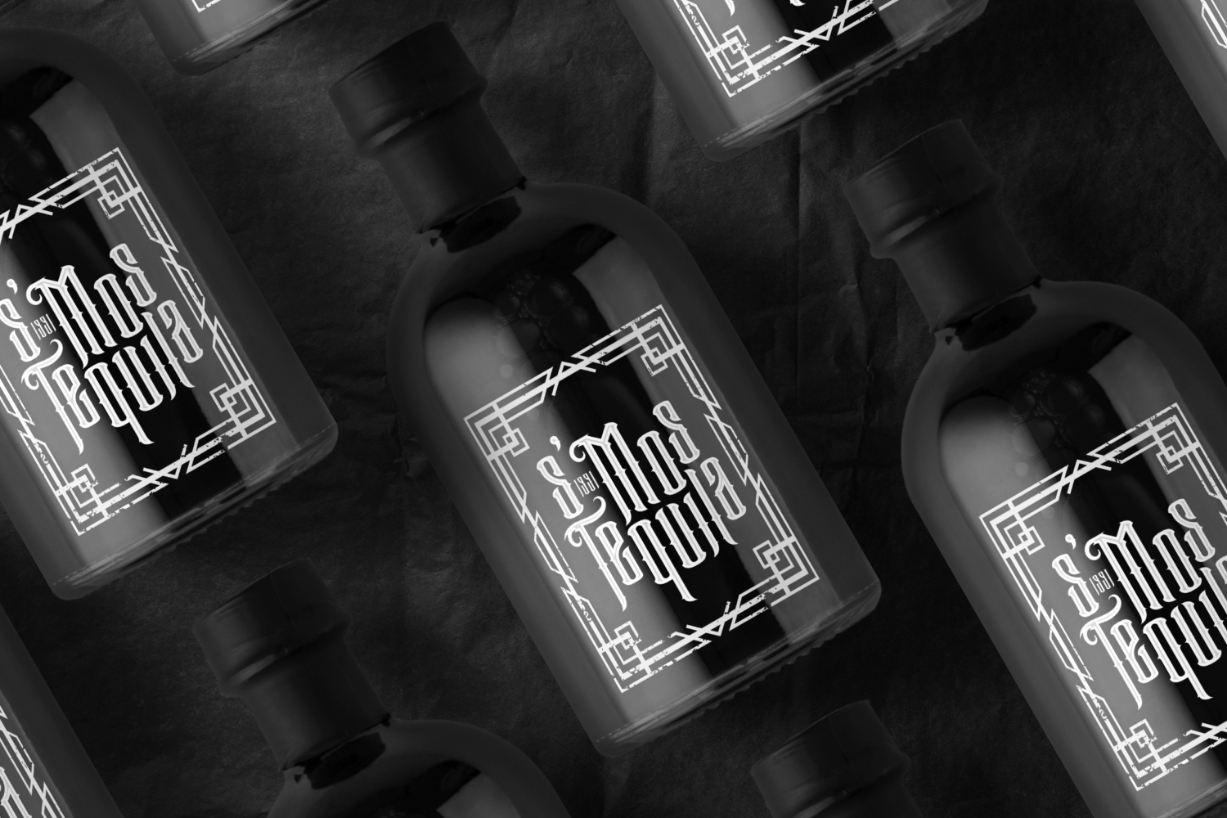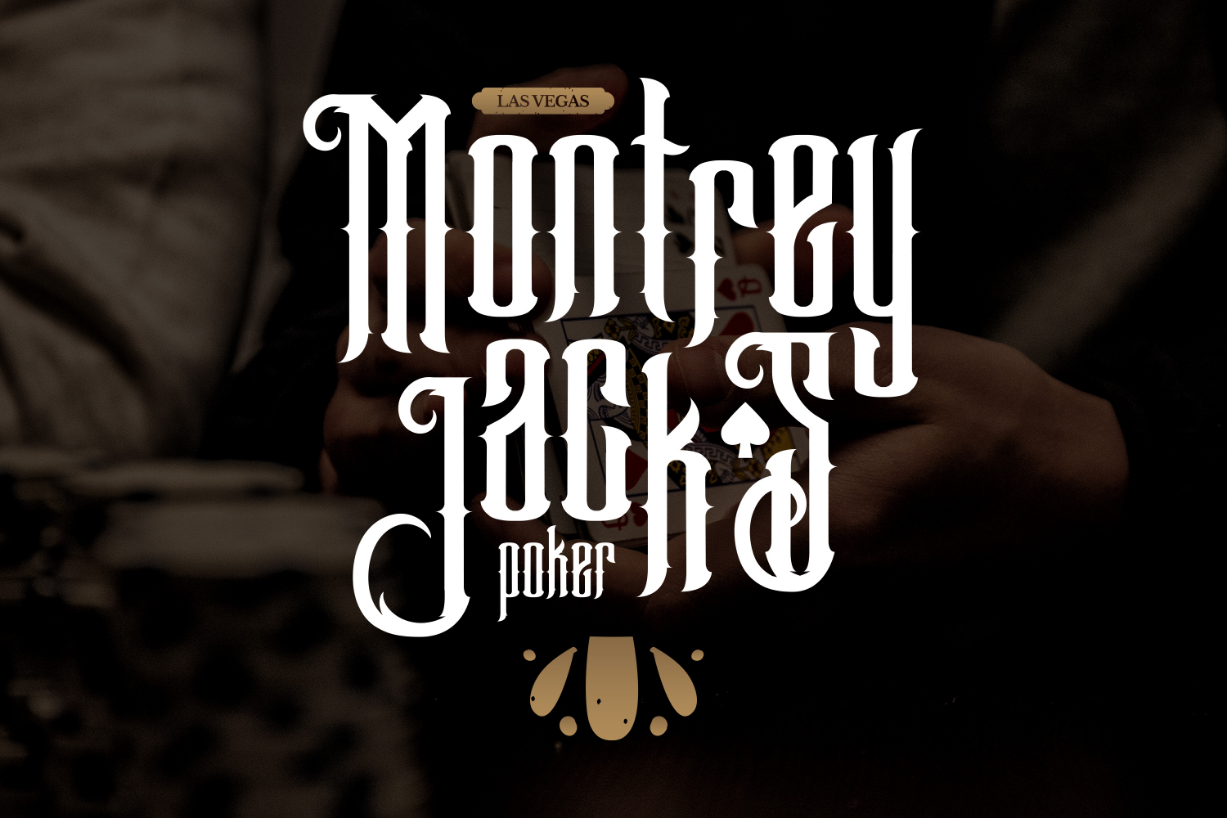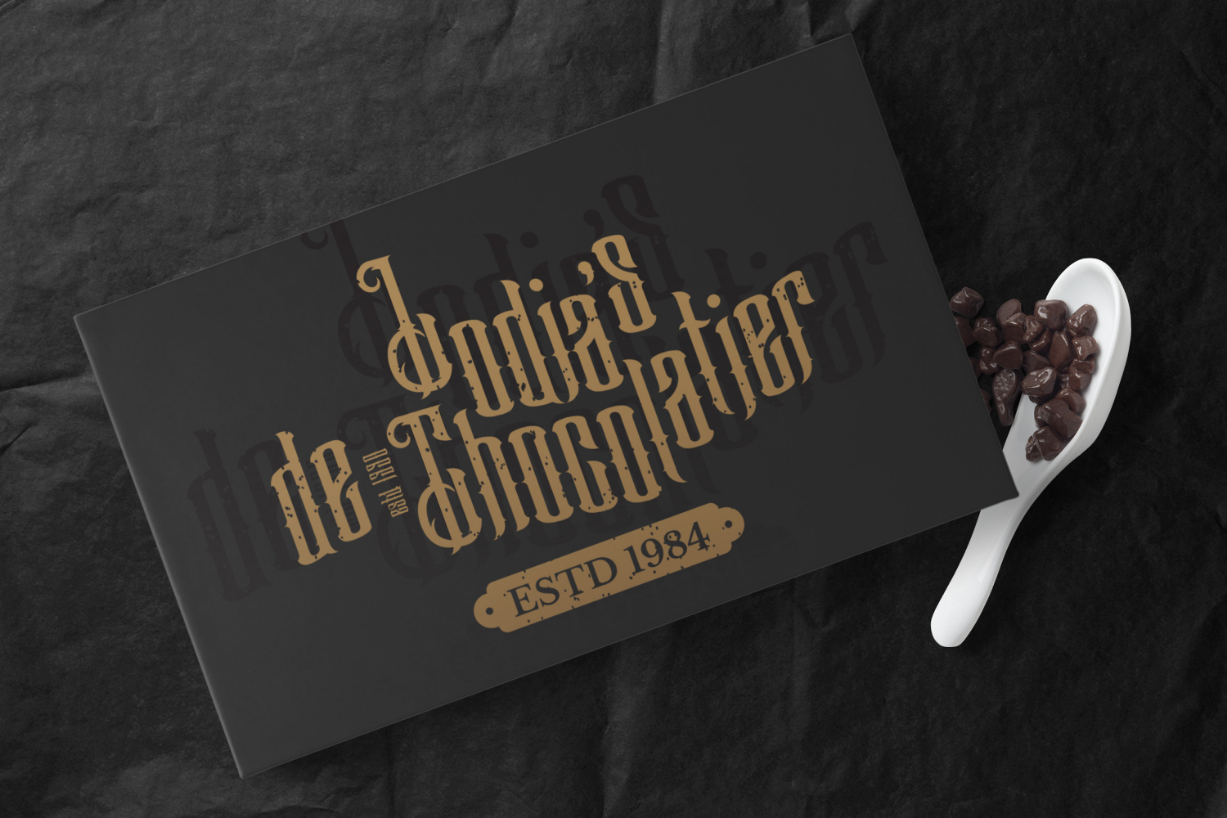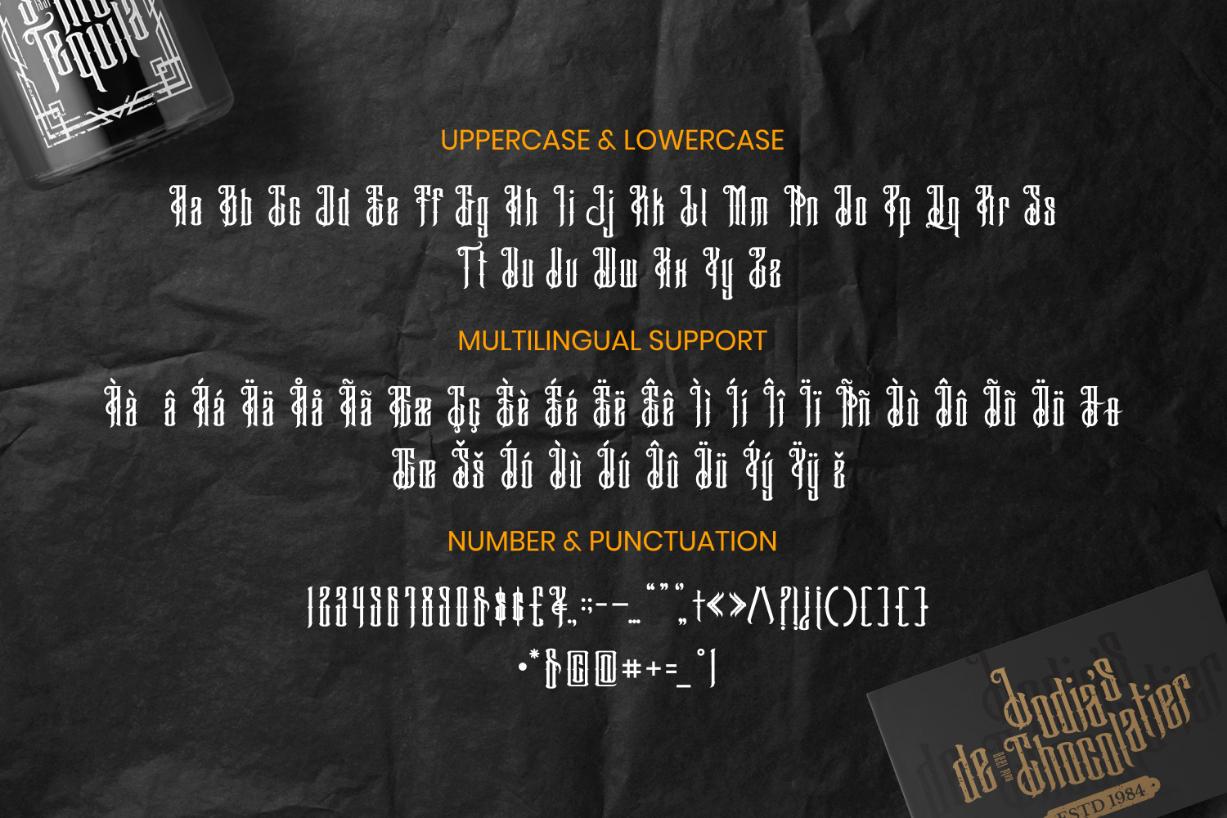
Good Boy Font
About Good Boy Font
Good Boy is a gothic and blackletter font. It is imposing and features uniquely shaped letters, and as a result, it will easily match a wide range of creations that require a distinct touch.